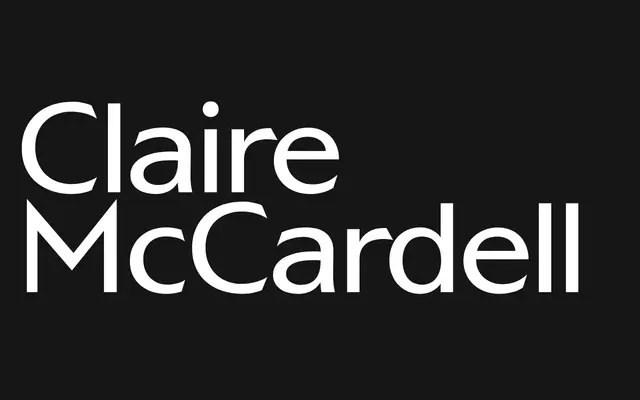
Azaka
Newglyph · Ian Party
A variable sans-serif by Ian Party with deliberate asymmetry, named after the Haitian agricultural deity Azaka.
The typeface's asymmetrical construction is said to mirror the organic variation of the earth and crops, drawing on the cultural heritage of Haiti and its indigenous Taino language. Available in 11 styles with a variable font axis covering the full weight range, it supports an extensive Latin character set across over 80 languages. The 389 glyphs per style include a comprehensive set of accented characters, ligatures and mathematical symbols.
Described as an asymmetrical sans-serif hybrid, the design's organic irregularities and cultural references align it with humanist sans conventions rather than geometric or grotesque traditions.